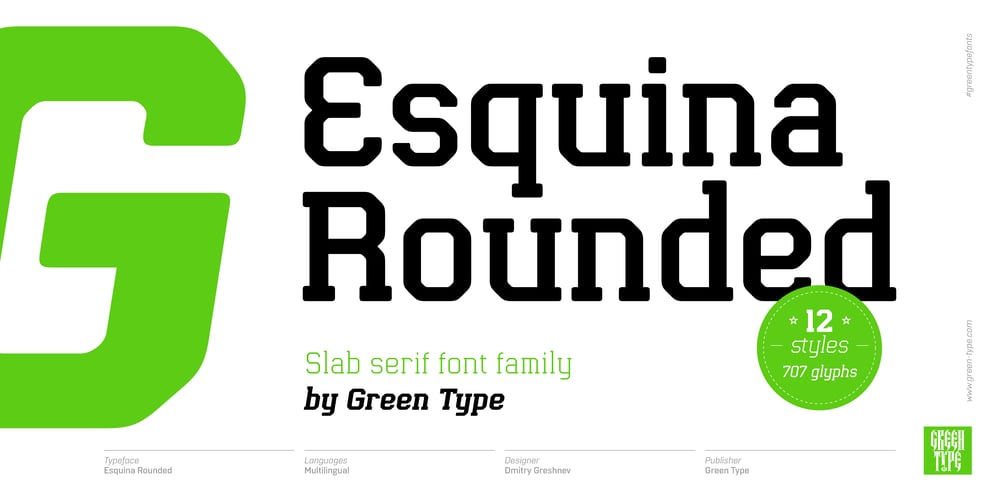
Esquina Rounded Font Family was designed by Dmitry Greshnev and published by Green Type. Esquina Rounded contains 12 styles and family package options. Esquina Rounded is a family of octagonal slab serif fonts. Designed for use in outdoor advertising, branding, packaging. Esquina Rounded is also ideal for sports related materials such as team logos, flyers, posters and more.Esquina Rounded contains Latin, Cyrillic and Greek glyphs.